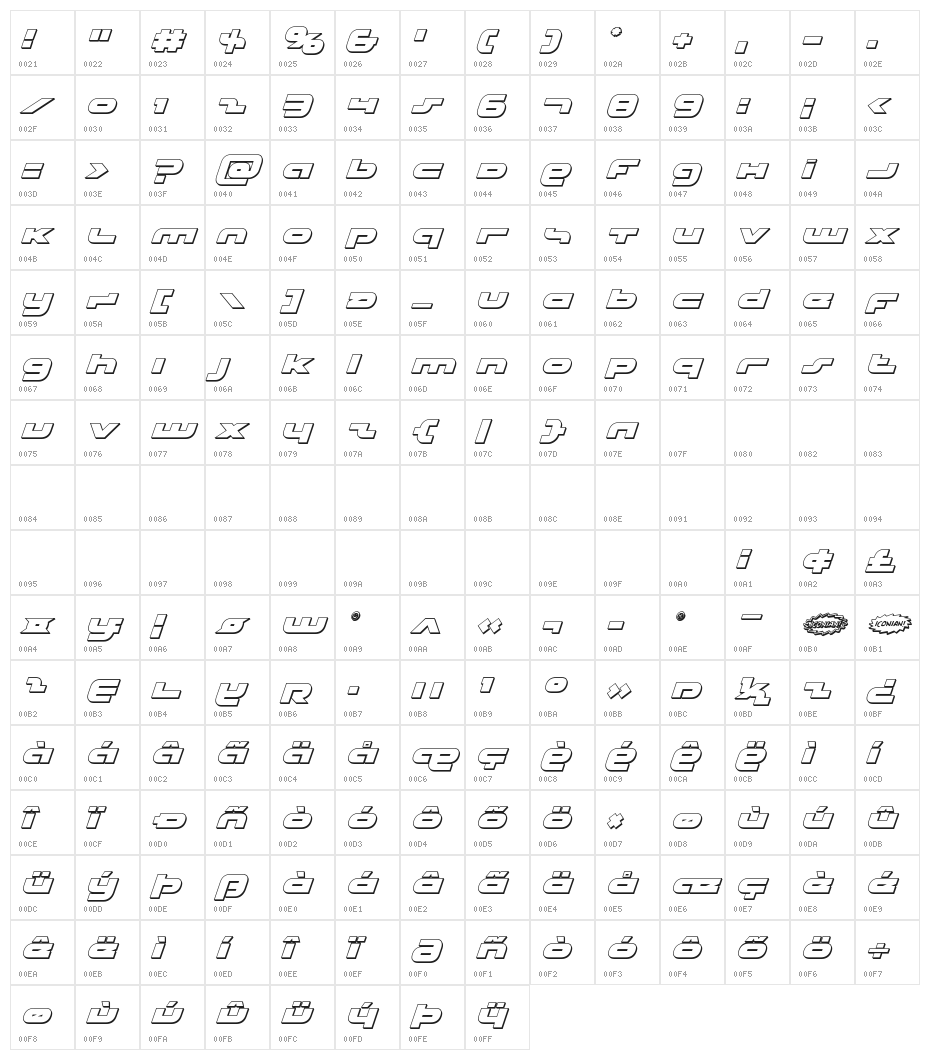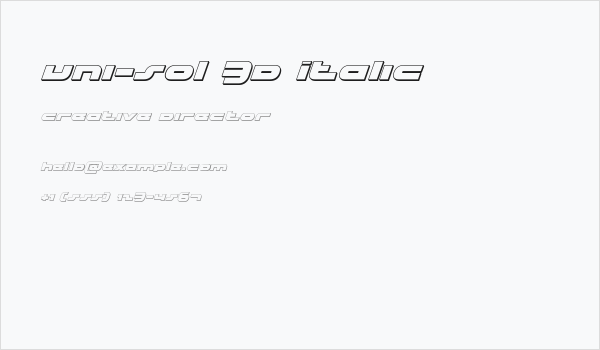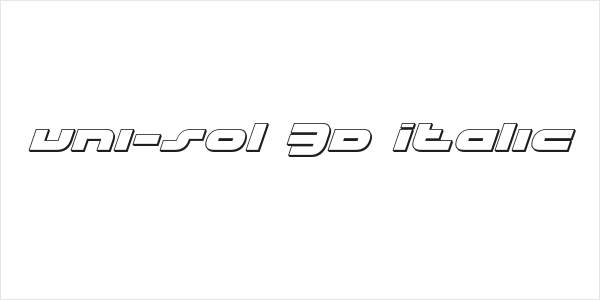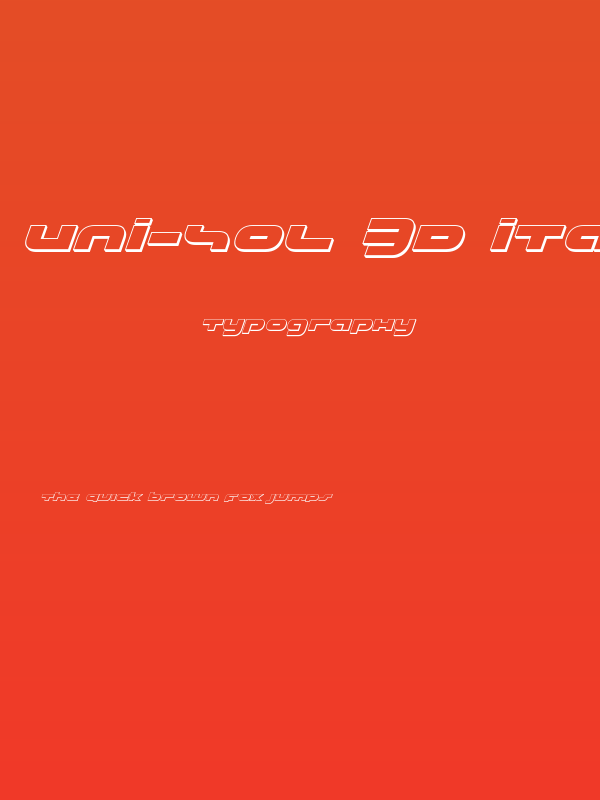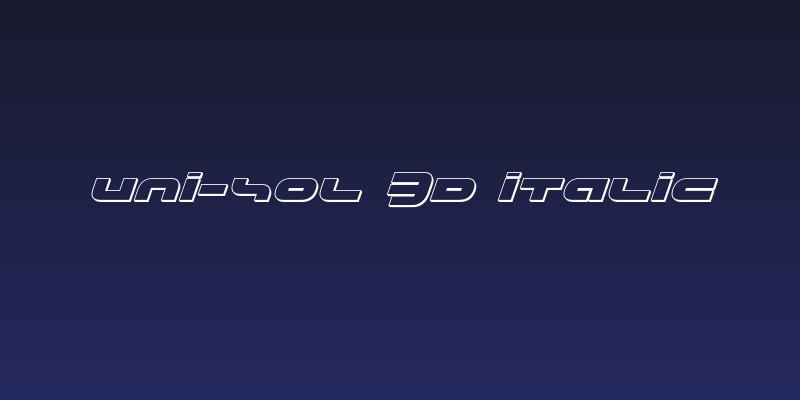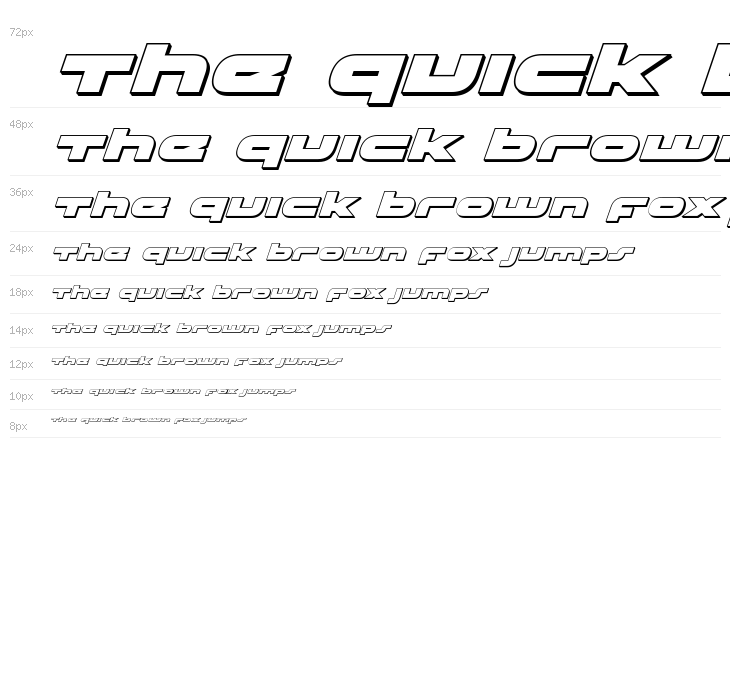
uni-sol 3D Italic Font
uni-sol 3D Italic Description
This font features a bold, three-dimensional design with a futuristic and dynamic appearance. The characters are italicized, giving them a forward-leaning stance that suggests movement and speed. Each letter is outlined, creating a hollow effect that enhances the 3D illusion. The font maintains a consistent thickness throughout, with sharp angles and geometric shapes that contribute to its modern aesthetic. The overall style is clean and structured, making it suitable for projects that require a contemporary and eye-catching look.